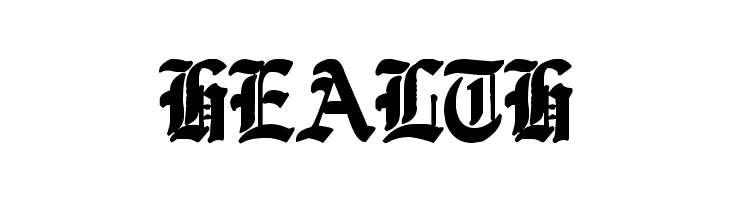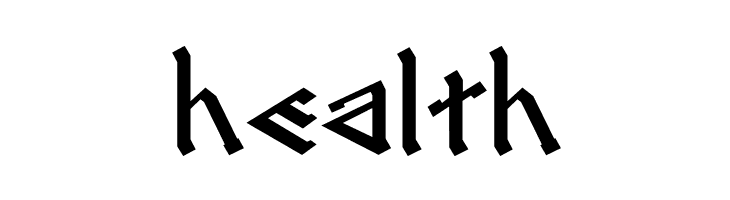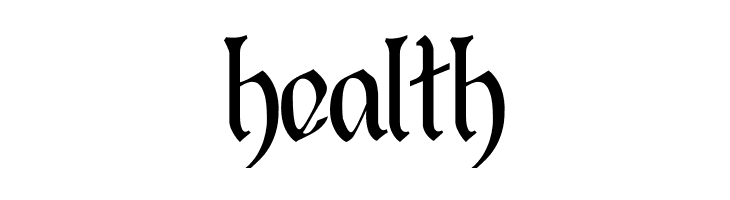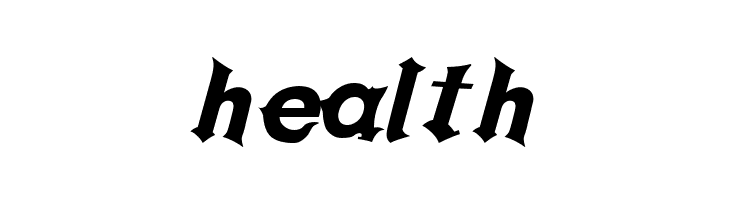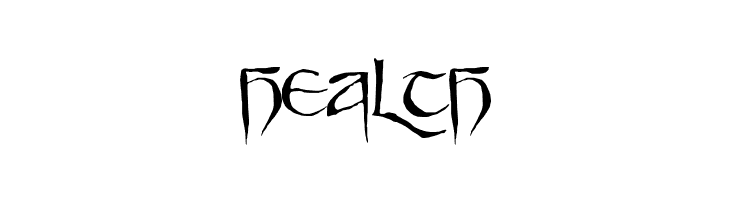
( Fonts by SDFonts - Ritzy )
A modern gothic font with sharp serifs and elongated strokes, exuding elegance and mystery.
( Fonts by Sinister Visions - Chad Savage - www.sinisterfonts.com )
A dramatic, gothic-style font with sharp, angular lines and intricate design.
( Fonts by Jens R. Ziehn - www.filmhimmel.com )
A bold, gothic-style font with sharp serifs and a medieval flair.